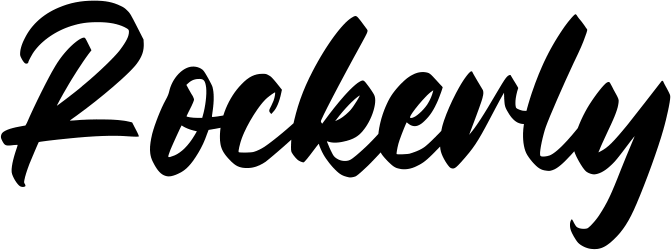
Rockerly Font
It’s time to stand out with a superb brush font for your books, branding, business cards, and many, many more. Just download it now and bring your creative ideas into reality. Since Rockerly font is a little bit illegible, we recommend you to use it for short lines. Want more? Head over to RB and enjoy dozens of free products.